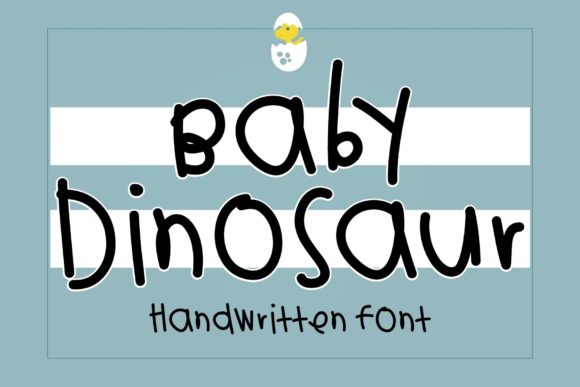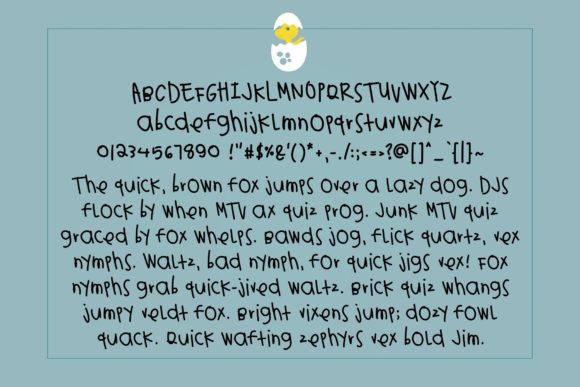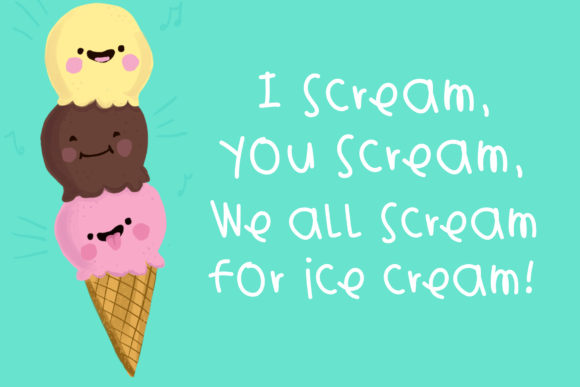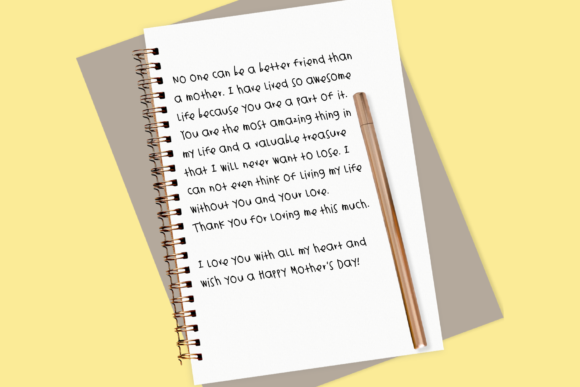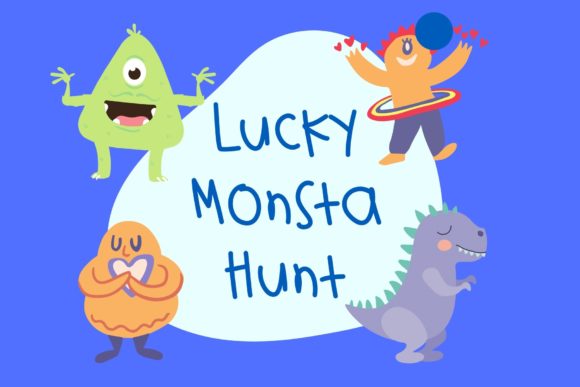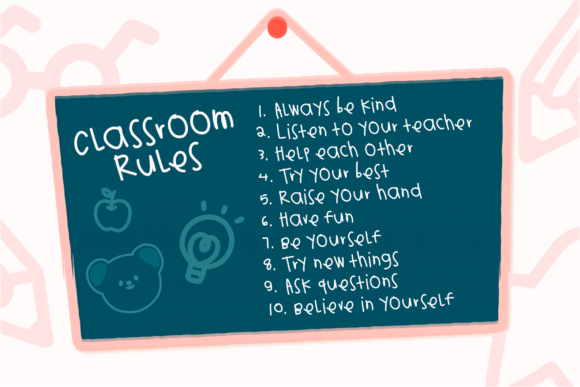
Baby Dinosaur Font
About Baby Dinosaur Font
Baby Dinosaur is a childish, fun and cute handwritten font. You can use this font in various projects that require a dainty or soft touch. Add it confidently to your projects, and you will love the results.